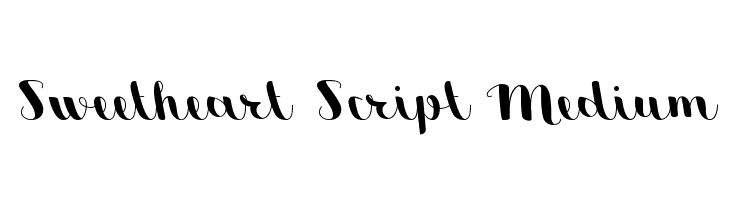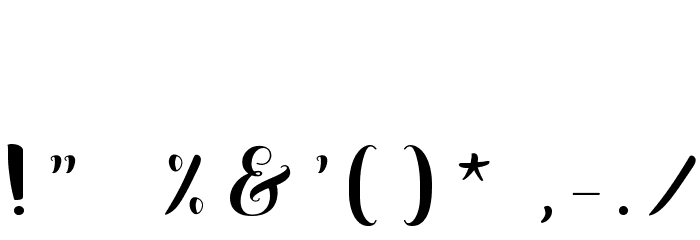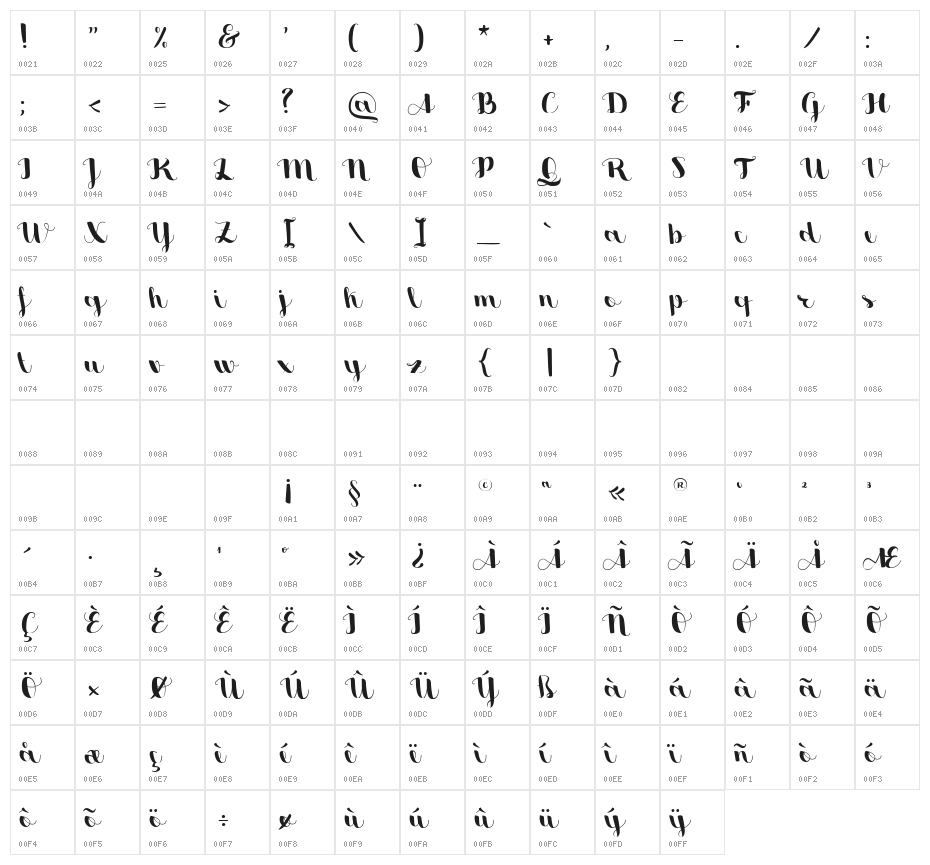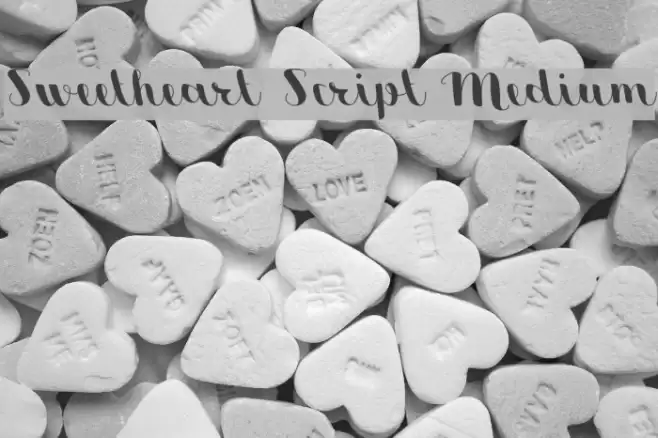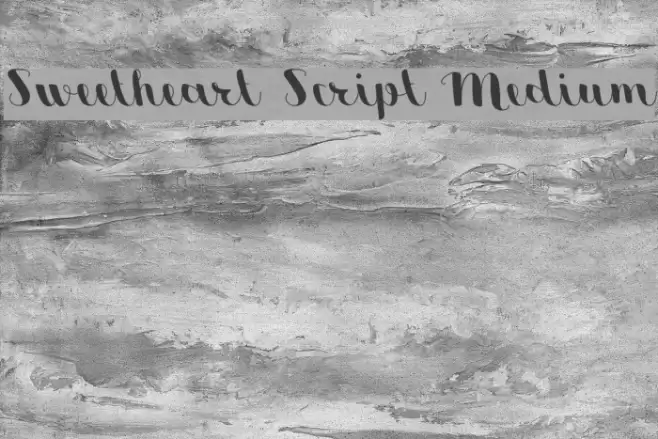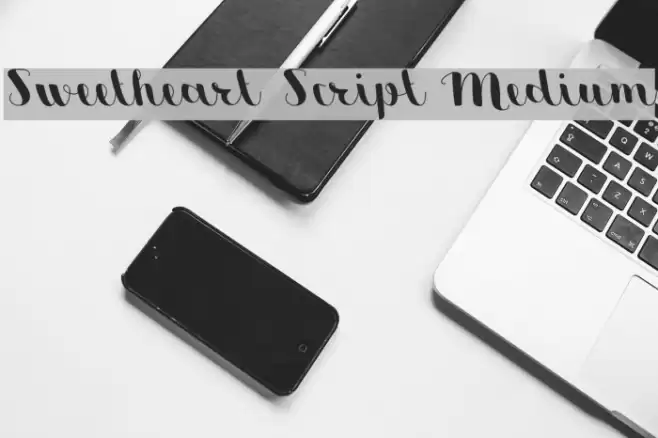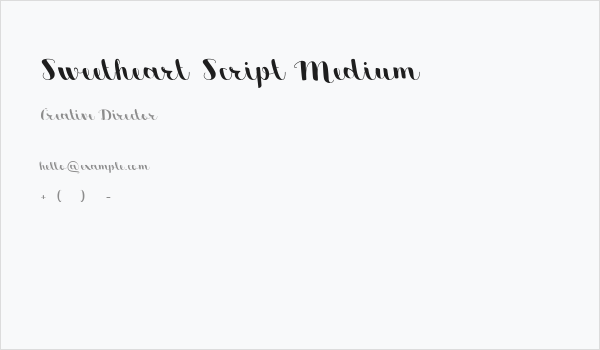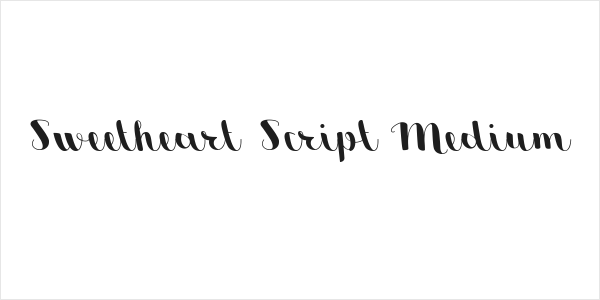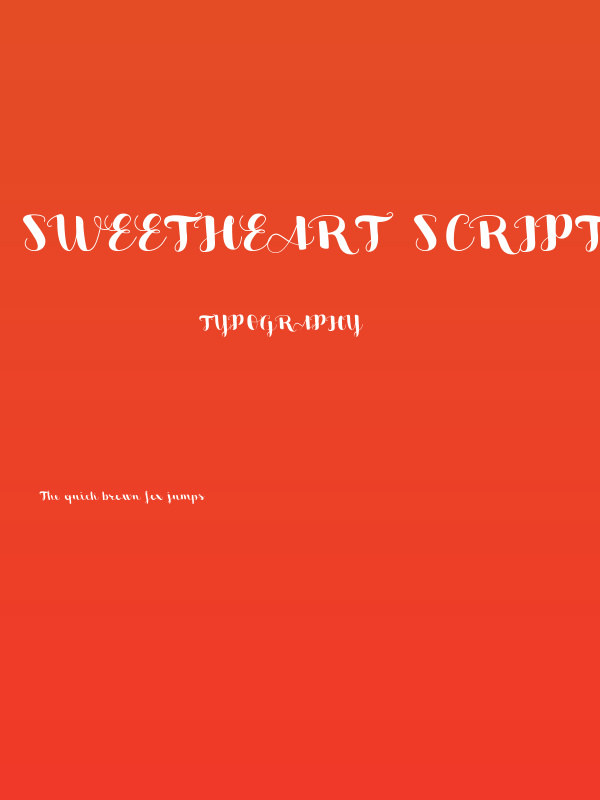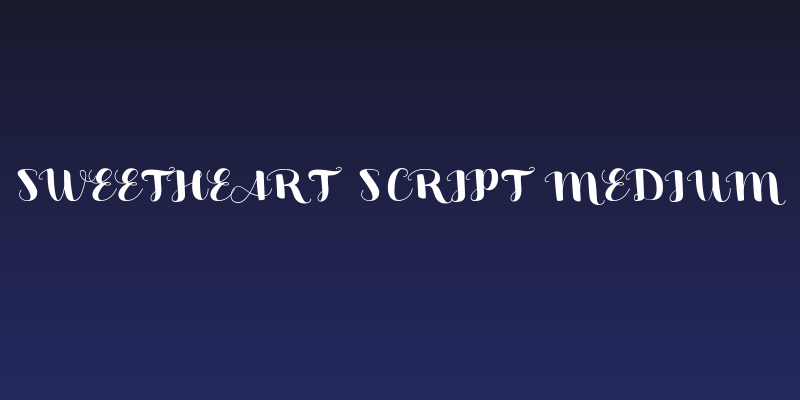
Sweetheart Script Medium Font
Sweetheart Script Medium Description
This elegant script font features flowing, interconnected letters that exude a sense of romance and sophistication. The uppercase characters are adorned with delicate swashes, adding a touch of flair and elegance. The lowercase letters maintain a consistent flow, enhancing readability while preserving the script's decorative nature. The font's bold weight ensures that it stands out, making it ideal for creating eye-catching designs. The character set includes a variety of punctuation marks and special characters, allowing for versatile use in different contexts. Its overall style is reminiscent of classic calligraphy, yet it maintains a modern appeal, making it suitable for both traditional and contemporary projects.